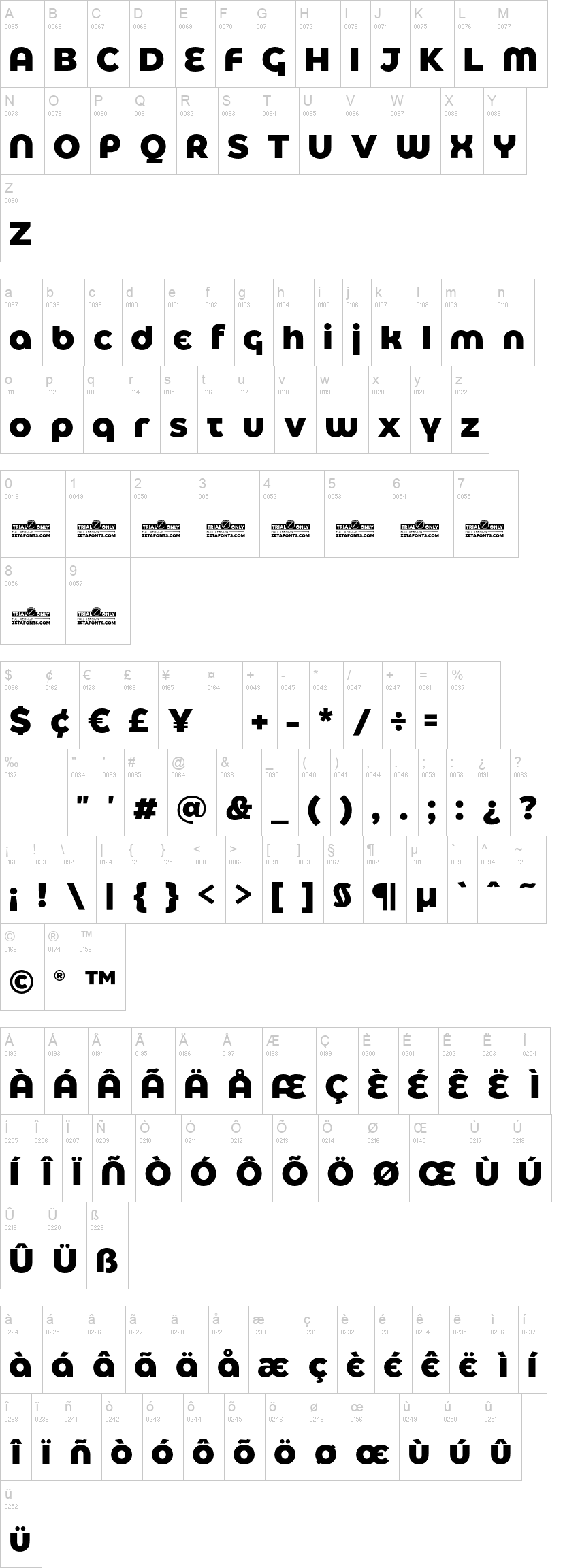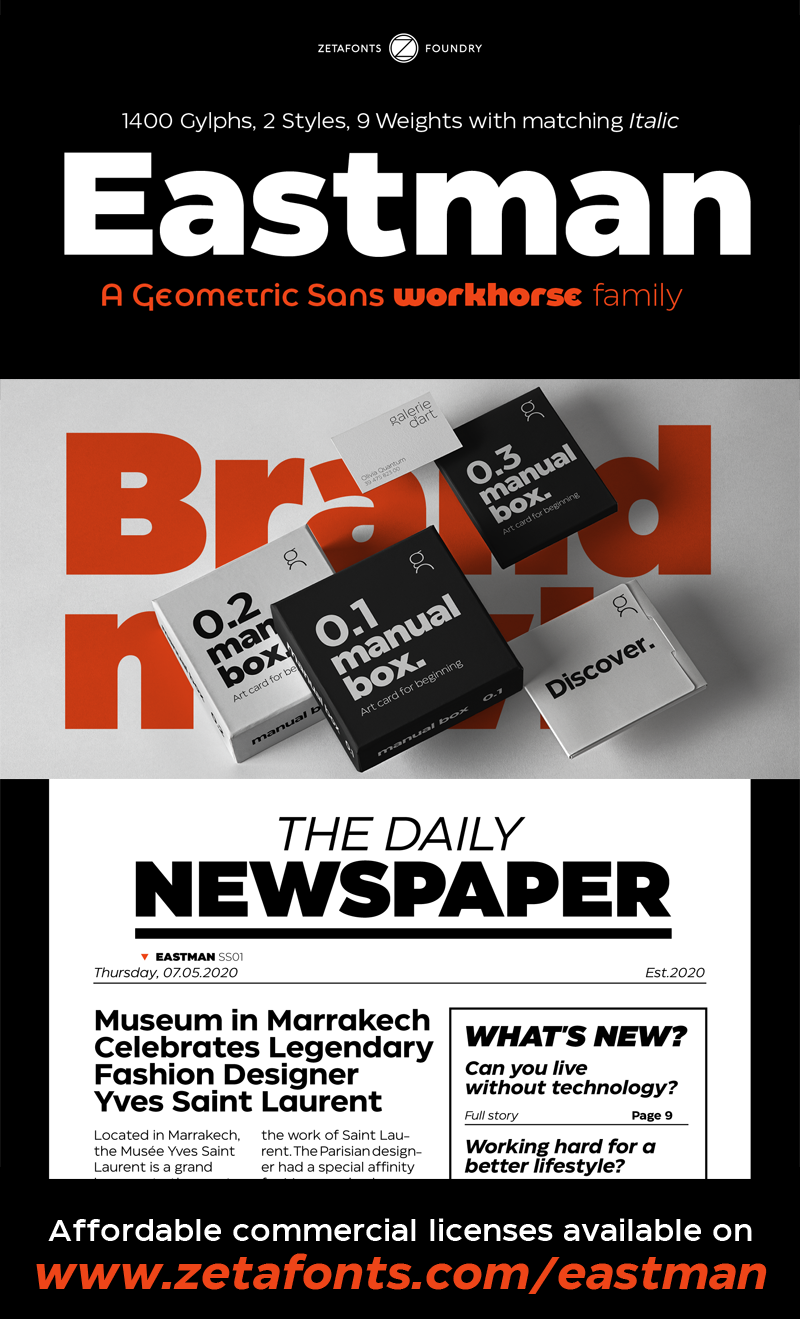
Eastman was designed in 2020 for Zetafonts by Francesco Canovaro and Andrea Tartarelli with help from Solenn Bordeau. It is a geometric sans workhorse family developed for maximum versatility both in display and text use, with a wide weight range and a solid monolinear design featuring a tall x-height that makes Eastman extremely readable on paper and on the screen.
Influenced by Bauhaus ideals and contemporary minimalism, but with a nod to the pragmatic nature 19th century grotesques, Eastman has been developed as a highly reliable tool for design problem solving, and given all the features a graphic designer needs - from a wide language coverage (thanks to over one thousand and two hundred latin, cyrillic and greek characters) to a complete set of open type features (including small capitals, positional numbers, case sensitive forms).
An impressive array of alternate characters and stylistic sets allows to fine-tune your editorial and branding design by choosing unique, logo-ready variant letter shapes. The twenty weights of the base family have been complemented by a display-oriented alternate family, as well as one variable version, bringing the full family to an impressive count of 41 fonts. Eastman excels in both body text, headings and wordmarks and it is your new option for a universal geometric grotesque.